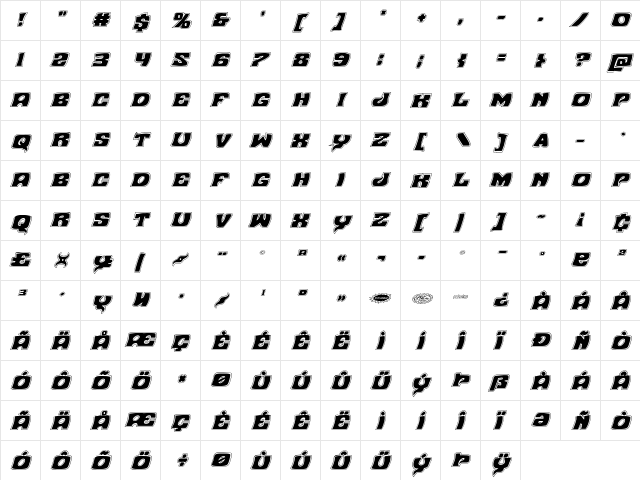
Nuevo Passion Academy Italic Italic
Design Context for Nuevo Passion Academy Italic Typeface
Nuevo Passion Academy Italic is a composed and adaptable typeface that performs quietly and consistently across a wide range of design contexts. Its italic angle brings a sense of urgency and motion to the letterforms.
Pro Tip: Try Nuevo Passion Academy Italic for annotation and caption copy alongside an upright companion — the contrast in angle creates a dynamic but ordered typographic system.